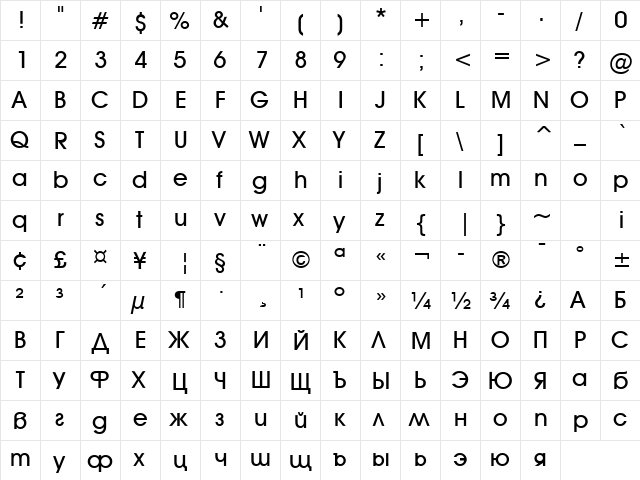
AvantGarde Medium Medium
Design Context for AvantGarde Medium Typeface
AvantGarde Medium takes a measured approach to typography — its balanced proportions and neutral character make it a reliable workhorse for both digital and print work.